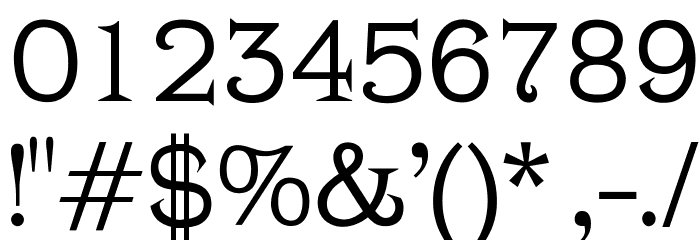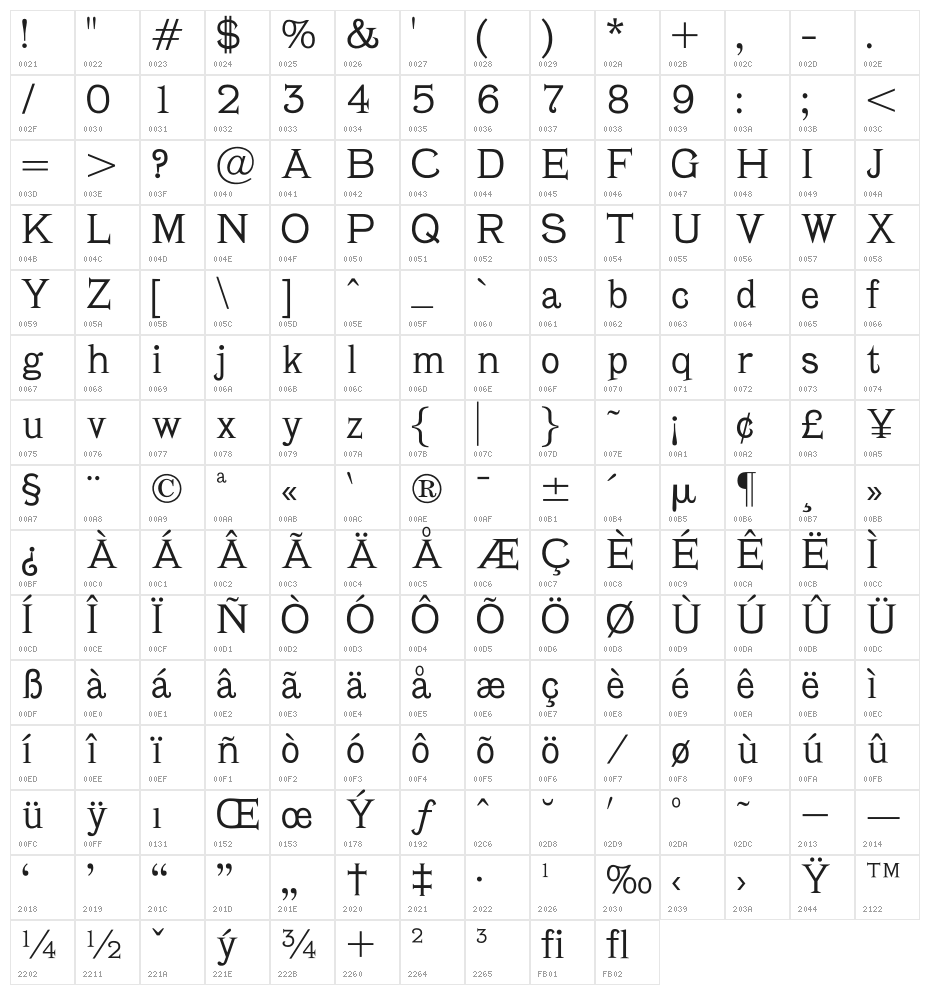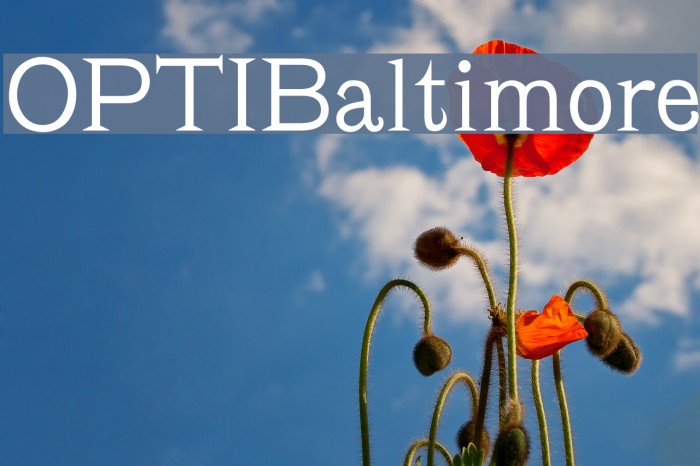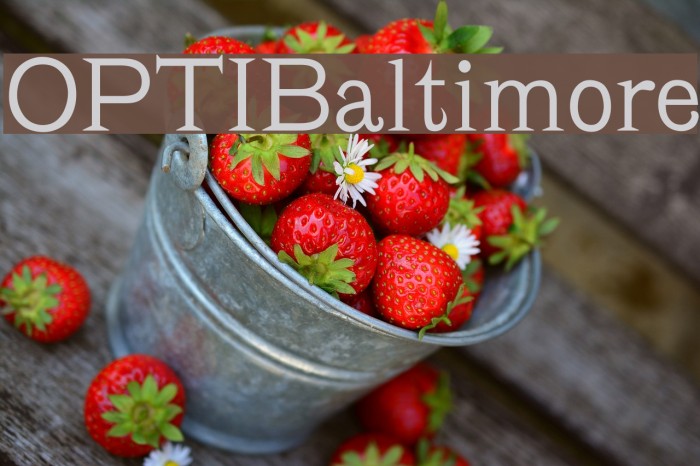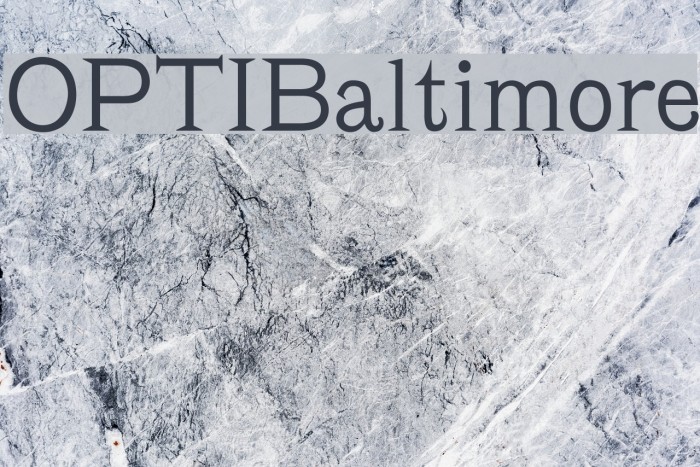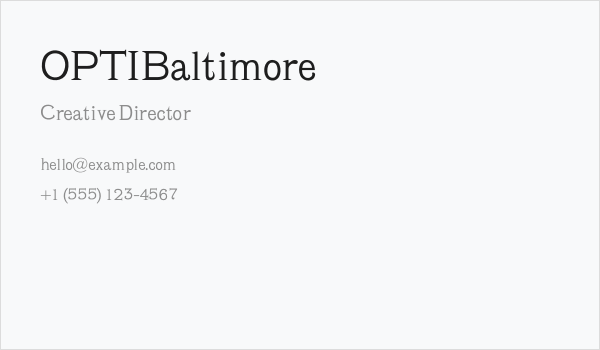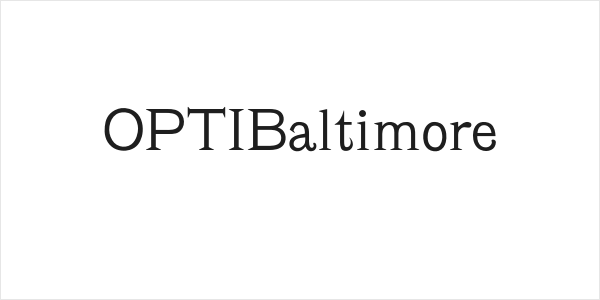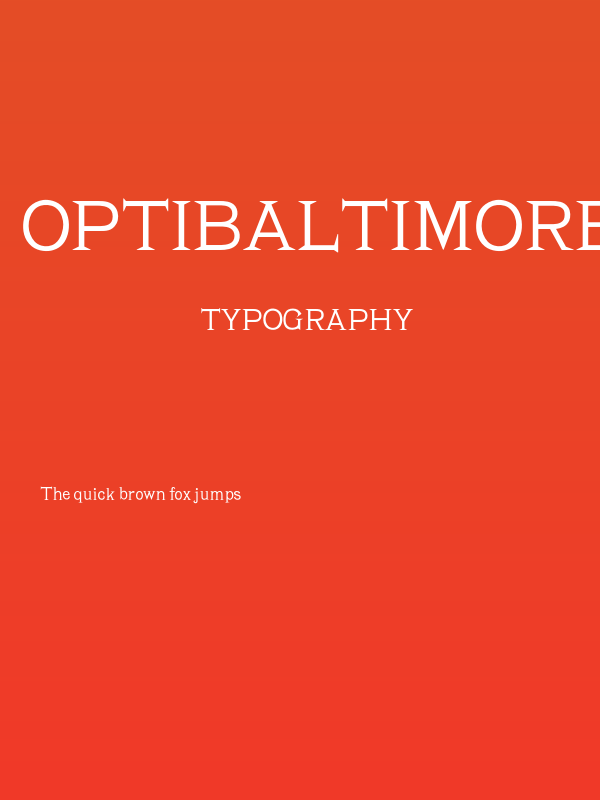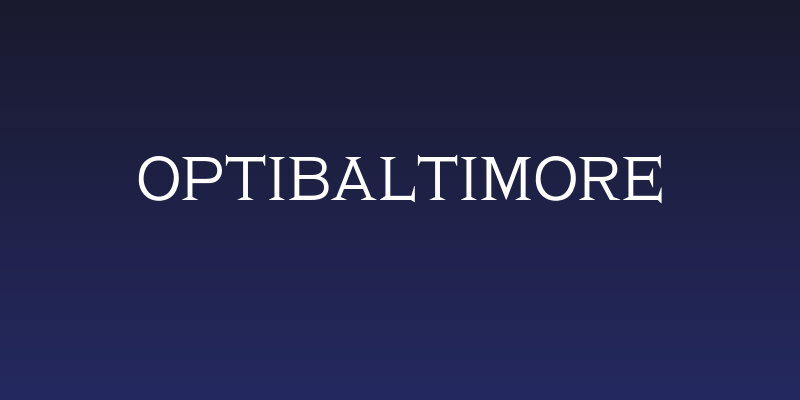
OPTIBaltimore Font
OPTIBaltimore Description
This font features a classic serif style with elegant and refined strokes. The uppercase letters are bold and commanding, while the lowercase letters maintain a graceful and readable form. The numerals are clear and distinct, making them suitable for various applications. Special characters are well-defined, adding versatility to the font. The overall design is balanced, with a moderate contrast between thick and thin strokes, giving it a timeless appeal. It is suitable for both formal and informal settings, offering a sophisticated touch to any project.
| Proposed Projects | Ideal for editorial design, book covers, formal invitations, and branding materials. |